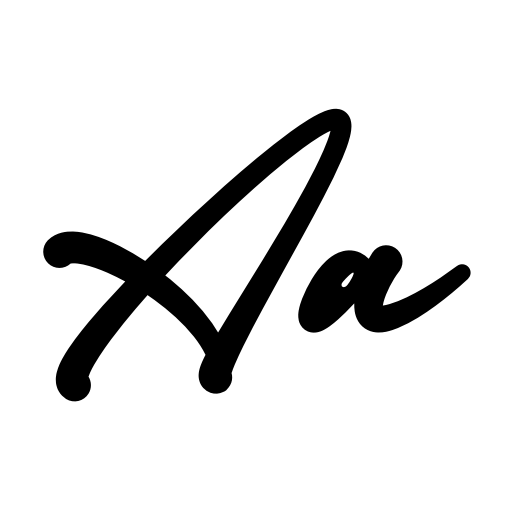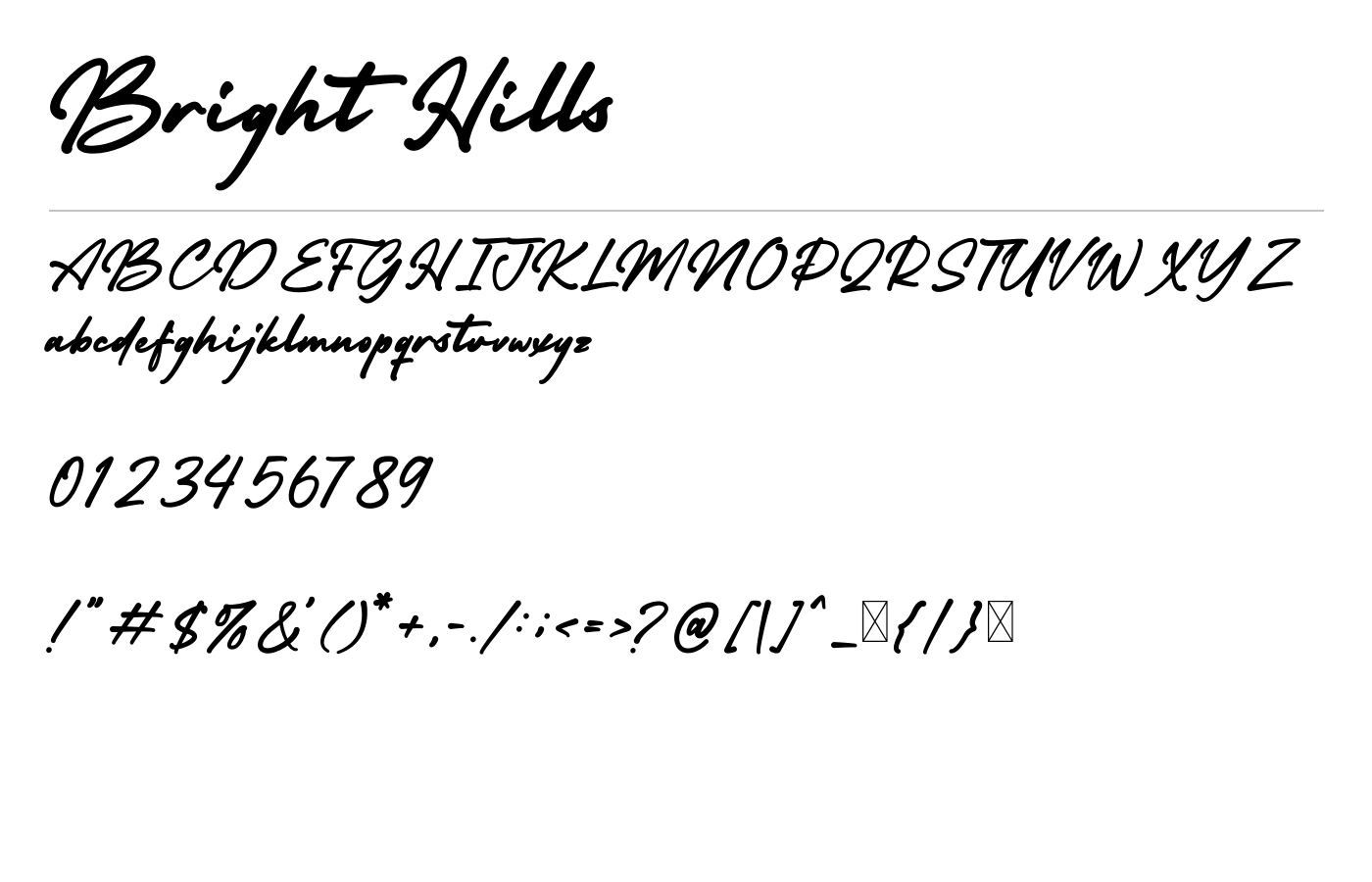
Bright Hills is a lively and elegant script font that captures the fluidity and charm of hand lettering with its smooth, connected strokes and moderate weight. Its natural, slightly slanted letterforms convey friendliness and warmth, making it ideal for branding, invitations, and creative projects that seek a personal and approachable touch. This font shines in logos, headlines, and packaging where a stylish yet readable script adds charisma and character.
Bright Hills Font
About Bright Hills Font
| Font family | Bright Hills Font |